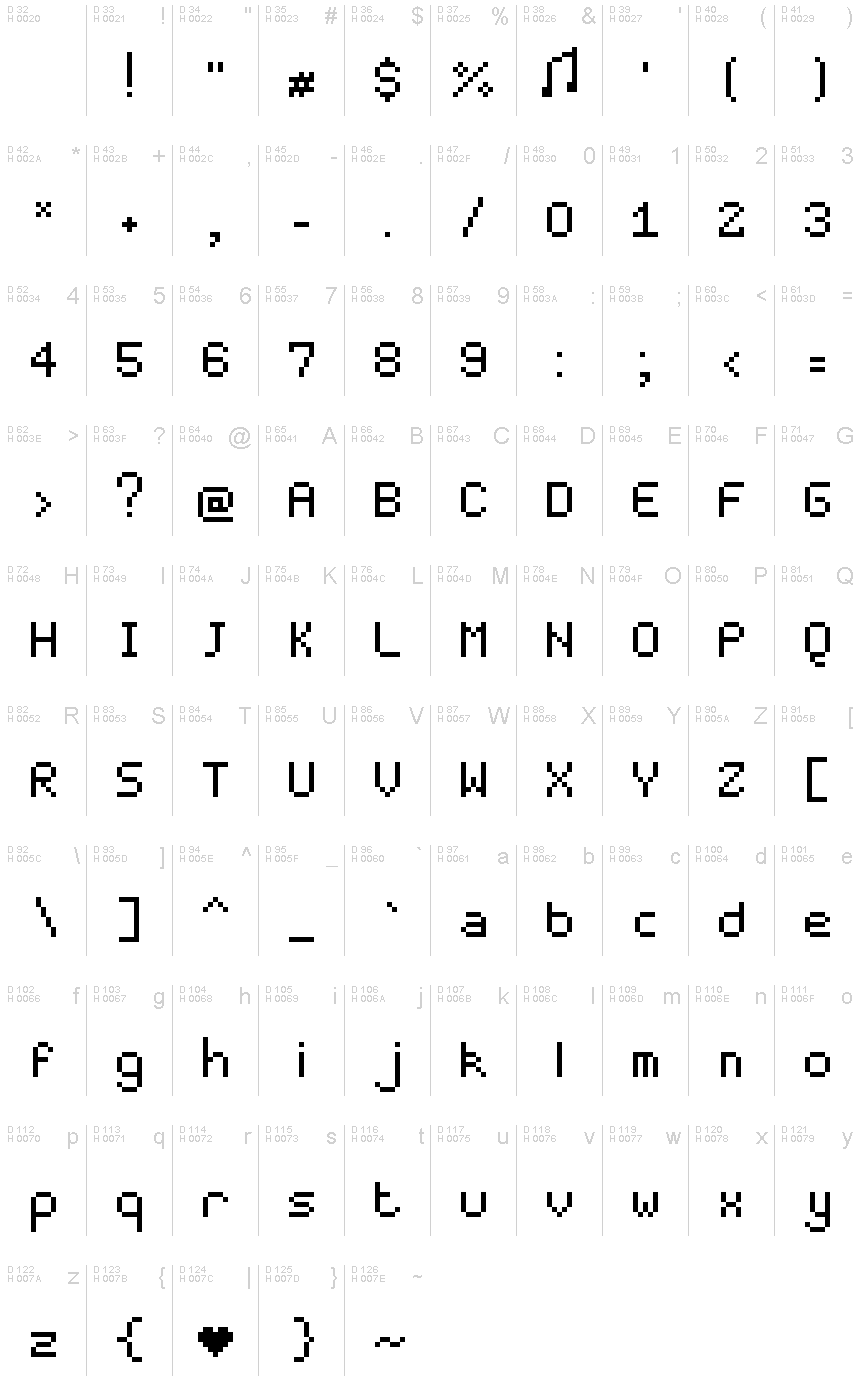
PixelMaster
PixelMaster is a captivating bitmap font that embraces a delightfully pixelated aesthetic. Designed by Twysel, this font effortlessly blends retro charm with contemporary flair, making it a standout choice for a variety of design applications. The sharp, angular letterforms and distinct pixel-based appearance lend PixelMaster a nostalgic, yet modern sensibility, perfect for evoking a vintage-inspired vibe or adding a touch of digital minimalism to visual projects.
Its versatile nature allows PixelMaster to shine in contexts ranging from game interfaces and app designs to retro-themed branding and eye-catching typography. Whether you're crafting a bold logo, designing engaging social media graphics, or seeking to infuse a project with a hint of pixelated magic, PixelMaster offers a striking and memorable typographic solution.